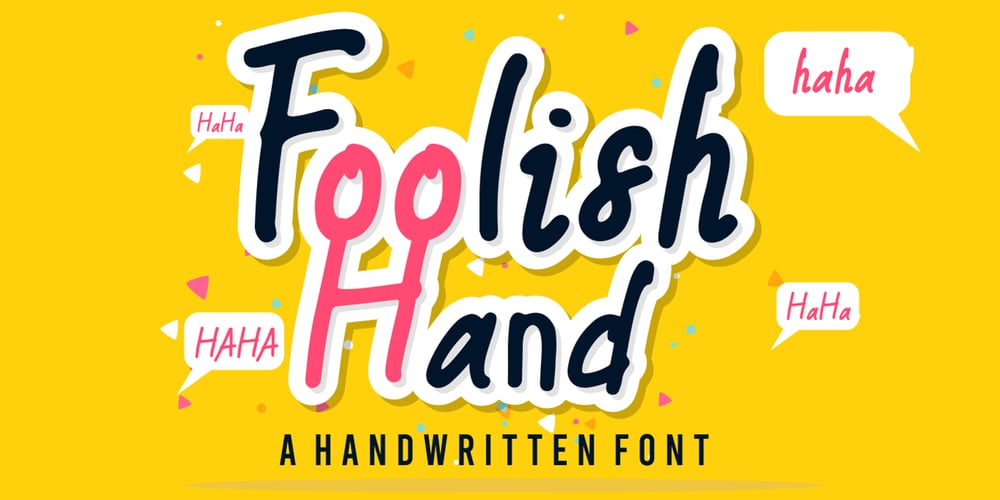
Foolish Hand Font Family was designed by Sipanji and published by Sipanji21. Foolish Hand contains 1 styles and family package options. Foolish Hand is a handwritten font written in original handwriting, this font is good for various graphic designs, such as making children’s drawings, coloring book covers, packaging, advertising, movie covers, posters and for any crafting.I hope this font is useful for you, have a nice day.